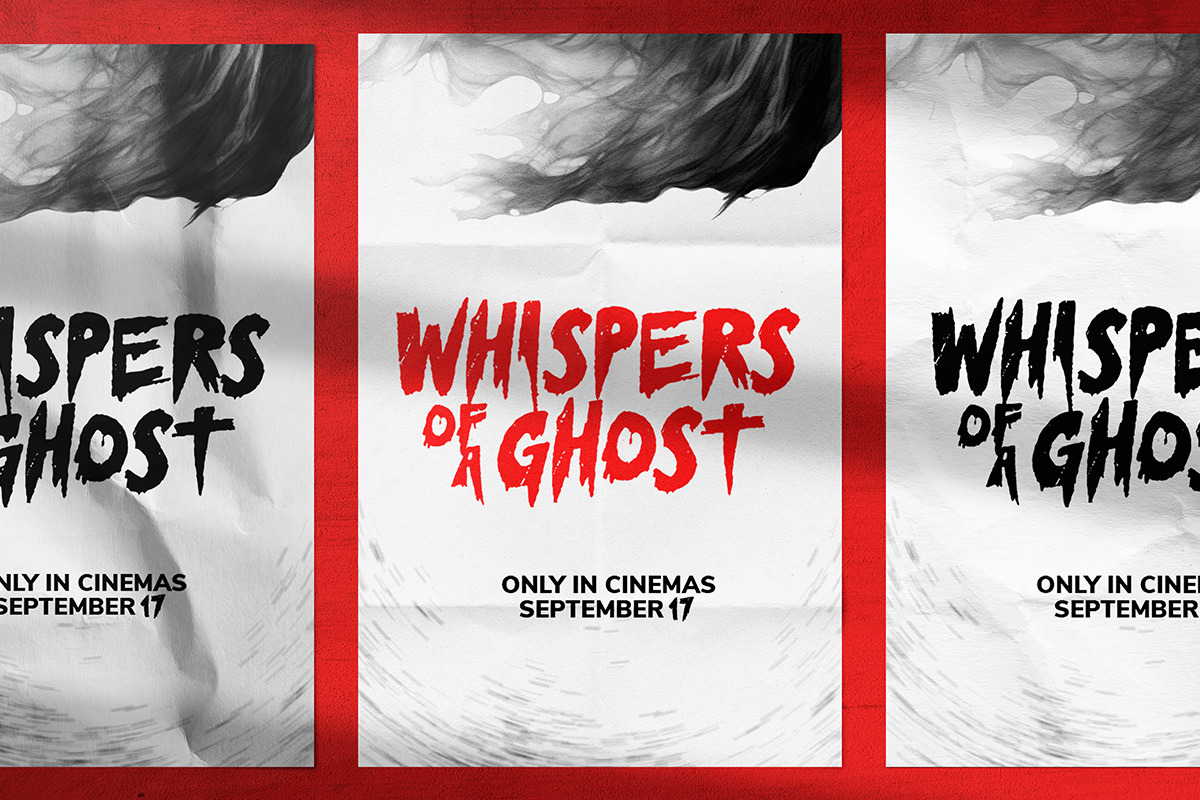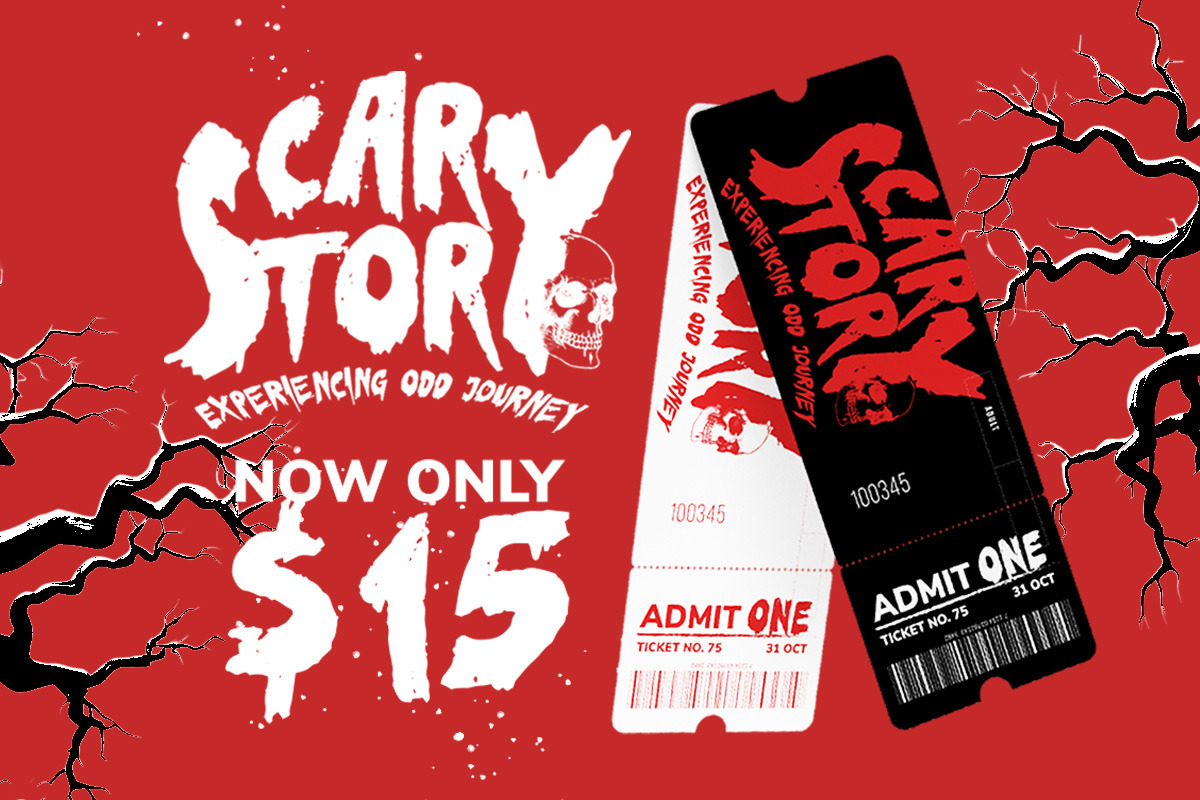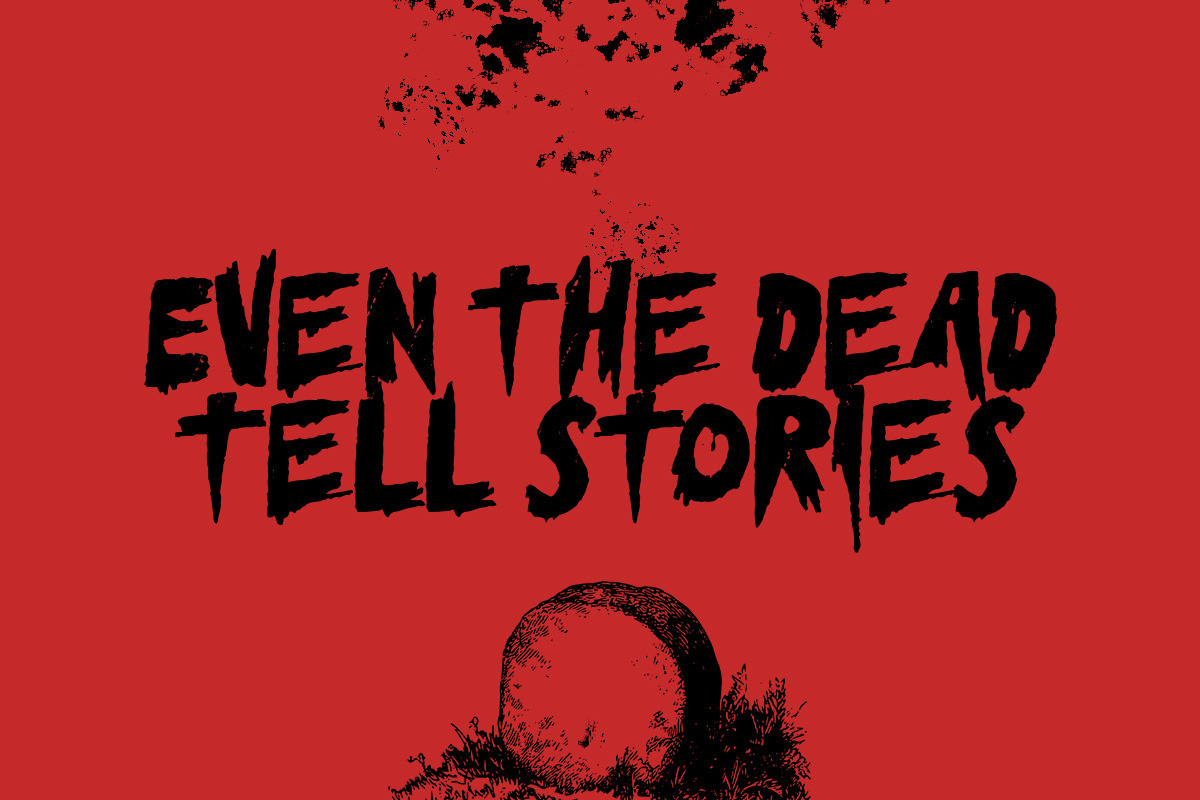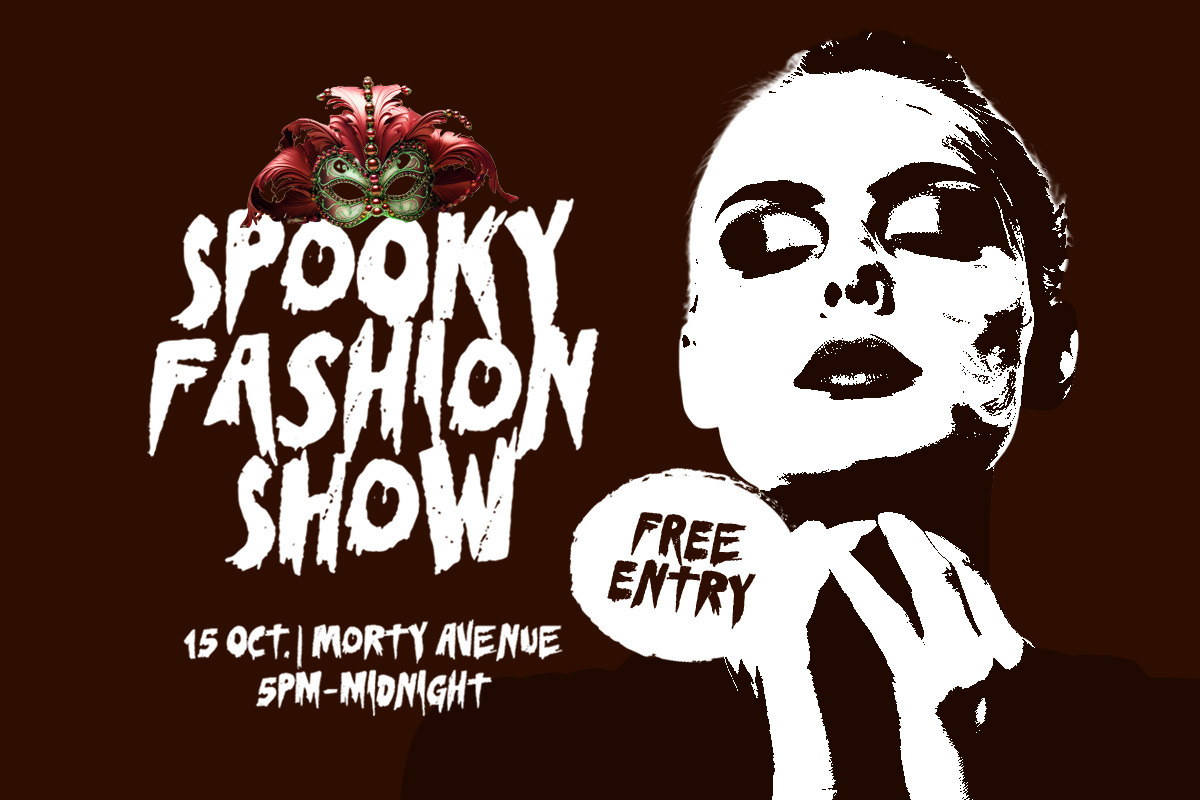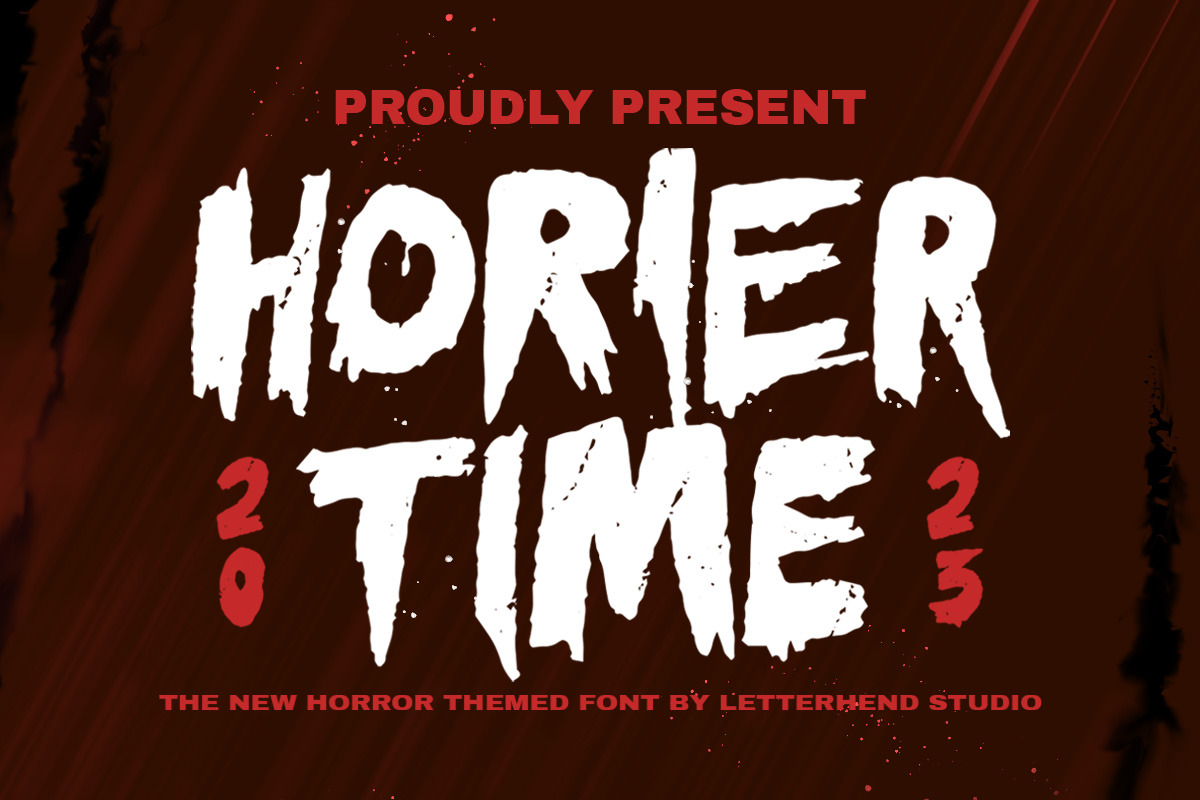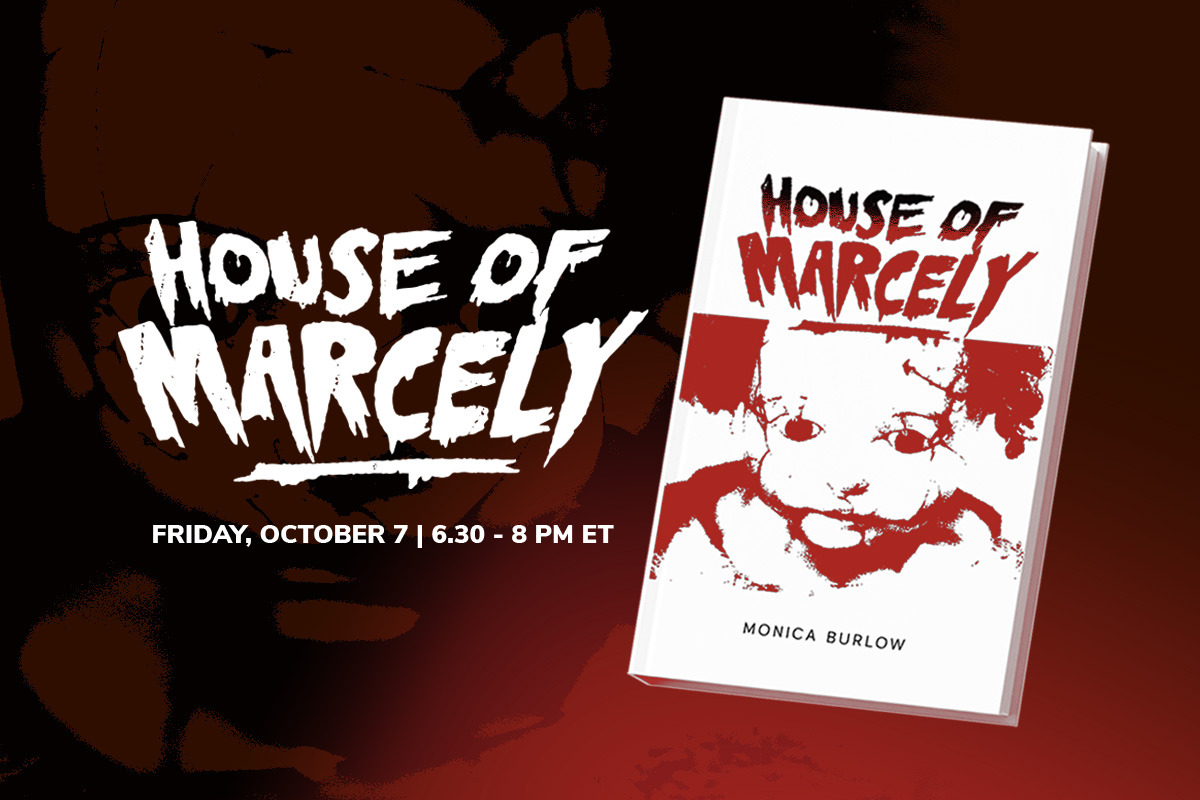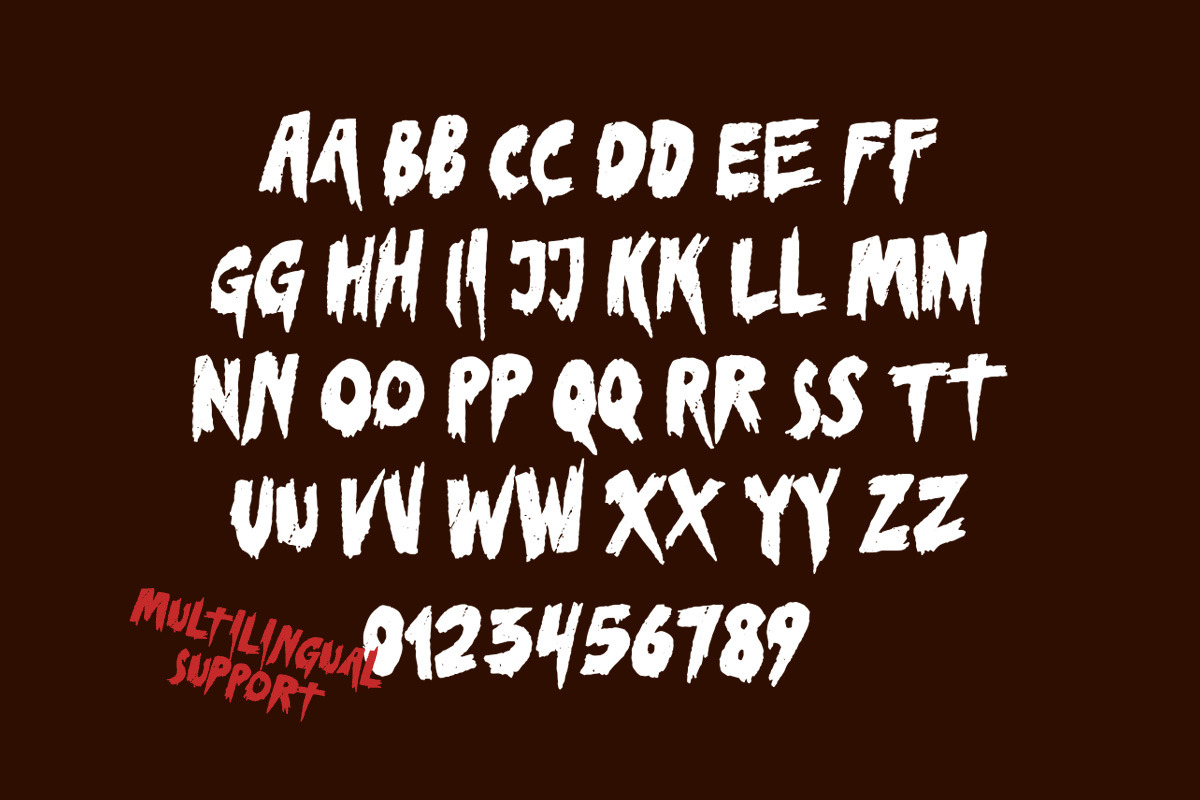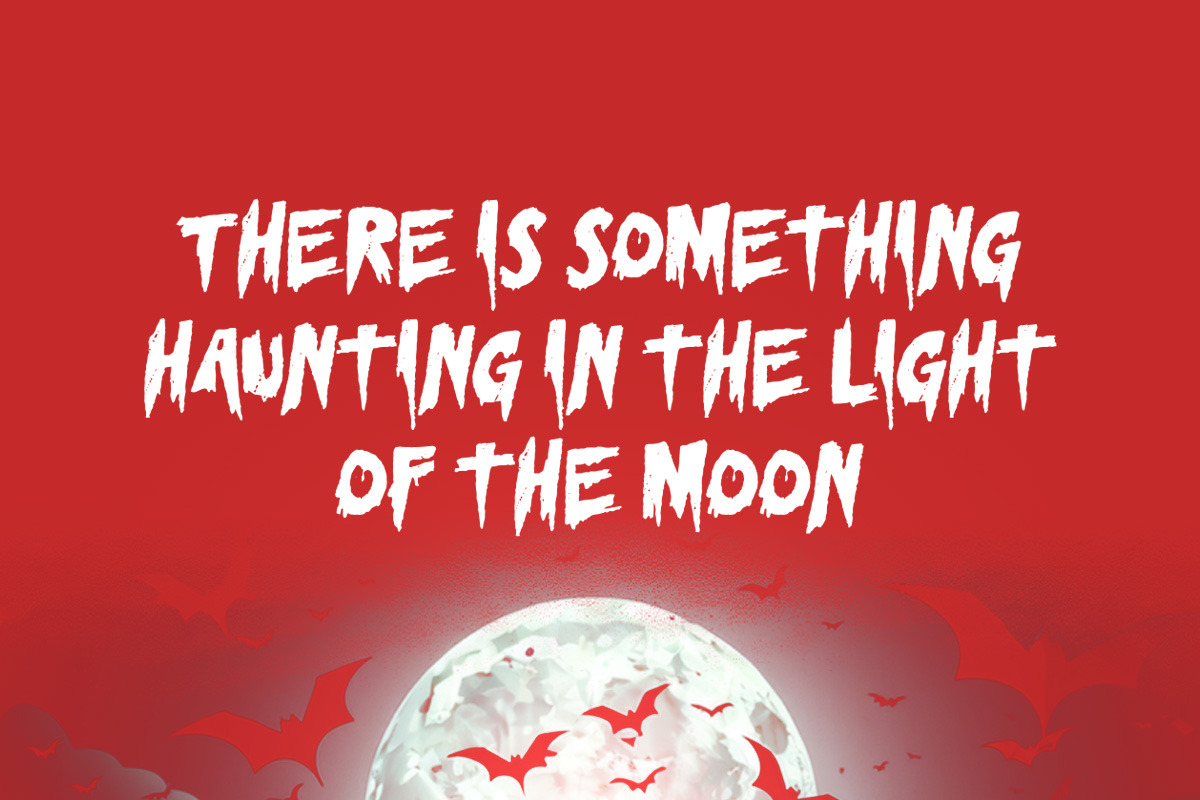
Horier Time - Horror Typeface
Unveil the depths of terror and embrace the macabre with our latest font creation,Horier Time - a bloody mesmerizing horror display font. Prepare to embark on a spine-tingling journey into the darkest realms of design, where fear and fascination intertwine.